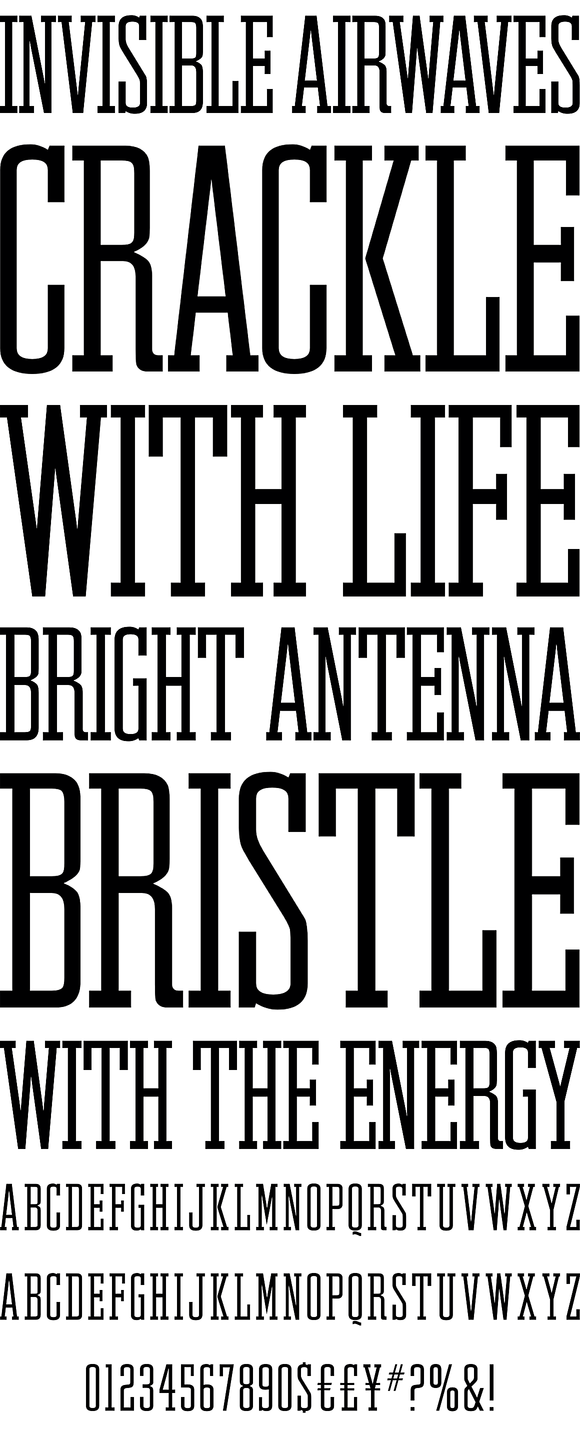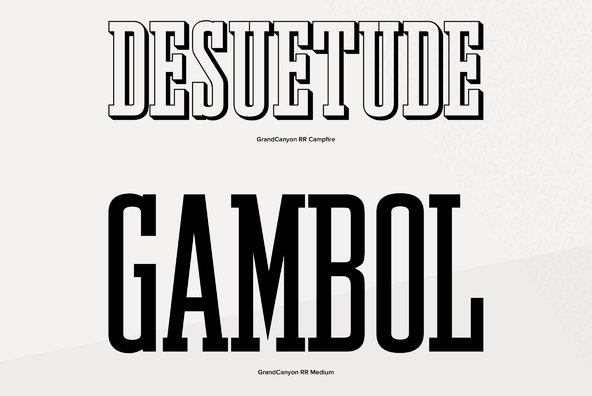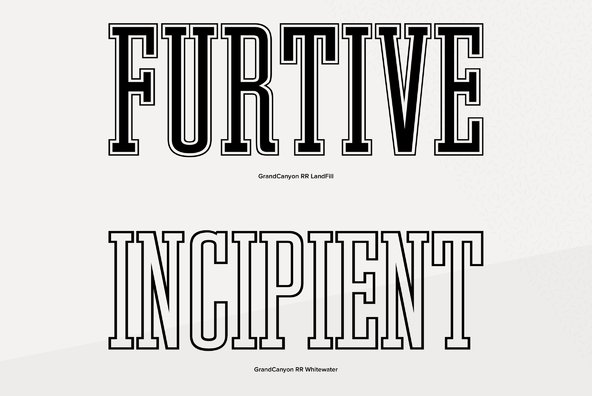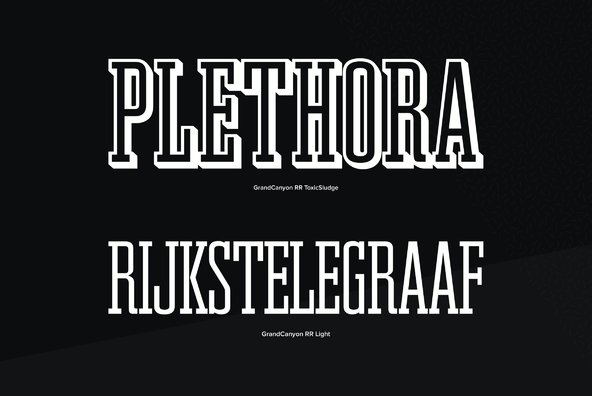
Grand Canyon
Designed by Steve Jackaman, Grand Canyon is slab-serf design based on an early wood type design. An original creation, that just kept growing...